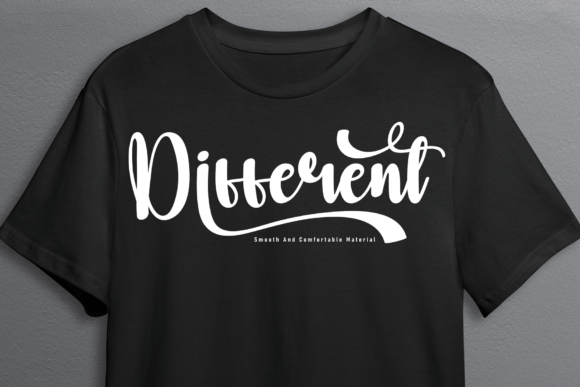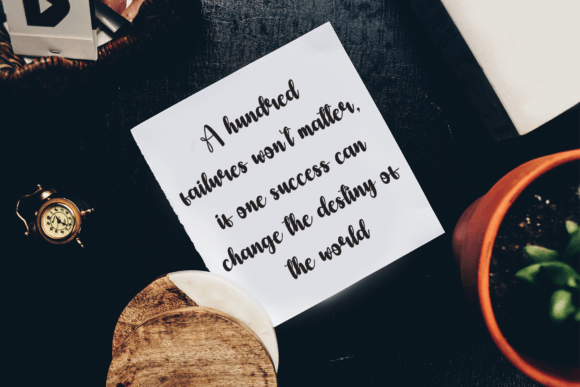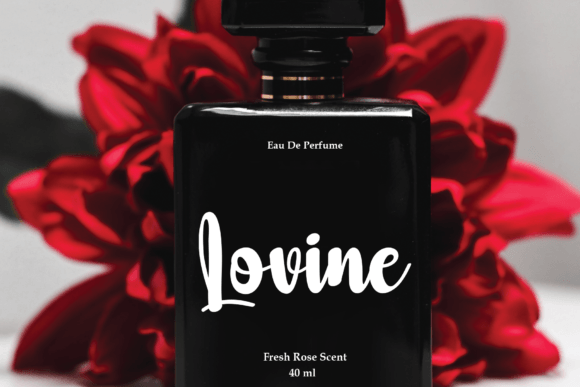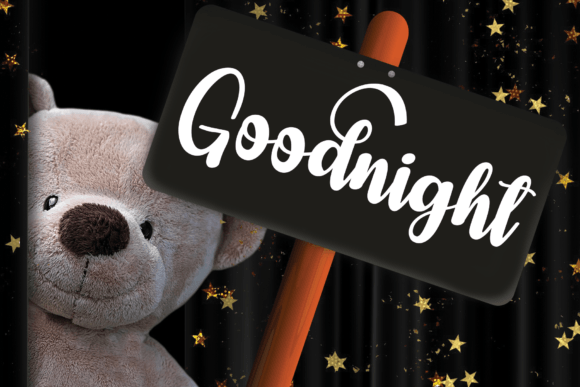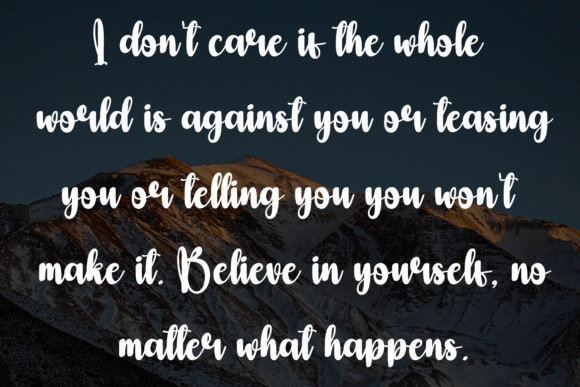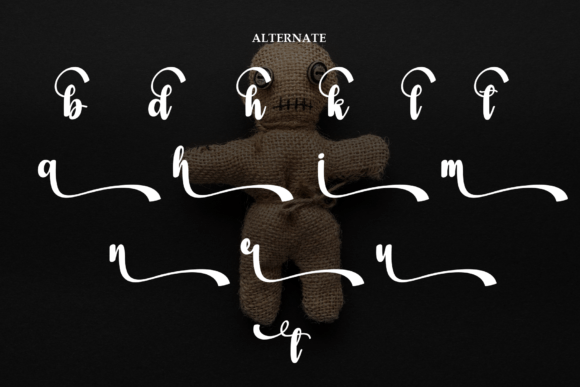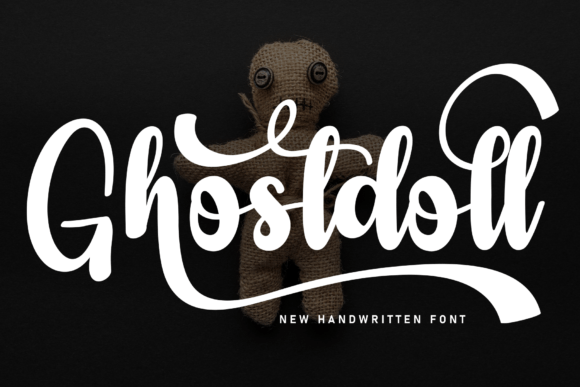
Introducing Ghostdoll Font: The Sweet and Friendly Handwritten Display Font
Are you looking for a font that can add a touch of sweetness and friendliness to your designs? Look no further than Ghostdoll Font! This beautiful handwritten display font is perfect for creating eye-catching wedding invitations, cards, and other designs that require a fun and playful touch.
What is Ghostdoll Font?
Ghostdoll Font is a carefully crafted handwritten font that exudes a sense of warmth and approachability. Its sweet and friendly appearance makes it an ideal choice for designers and crafters who want to create designs that are both visually appealing and emotionally resonant.
With its cute and fun design, Ghostdoll Font is perfect for a wide range of applications, from wedding invitations and cards to social media graphics and blog posts. Whether you’re a professional designer or a DIY crafter, this font is sure to become a favorite in your collection.
Key Features of Ghostdoll Font
So, what makes Ghostdoll Font so special? Here are just a few of its key features:
• Sweet and Friendly Design: Ghostdoll Font has a unique and charming design that’s sure to capture the hearts of your audience.
• Handwritten Appearance: This font has a beautiful handwritten appearance that’s perfect for creating personal and emotional connections with your audience.
• Cute and Fun: Ghostdoll Font is the perfect choice for designs that require a playful and fun touch.
• Highly Versatile: This font can be used for a wide range of applications, from wedding invitations and cards to social media graphics and blog posts.
Why Choose Ghostdoll Font?
With so many fonts to choose from, why should you choose Ghostdoll Font? Here are just a few reasons:
• Unique Design: Ghostdoll Font has a unique and distinctive design that’s sure to set your designs apart from the crowd.
• High-Quality: Ghostdoll Font is a high-quality font that’s been carefully crafted to ensure that it looks great in any design.
Tips and Tricks for Using Ghostdoll Font
Here are a few tips and tricks to help you get the most out of Ghostdoll Font:
• Use it for Headings: Ghostdoll Font is perfect for headings and titles, so try using it to add a touch of personality to your designs.
• Pair it with Other Fonts: Try pairing Ghostdoll Font with other fonts to create a unique and eye-catching design.
• Experiment with Colors: Don’t be afraid to experiment with different colors and textures to add depth and interest to your designs.